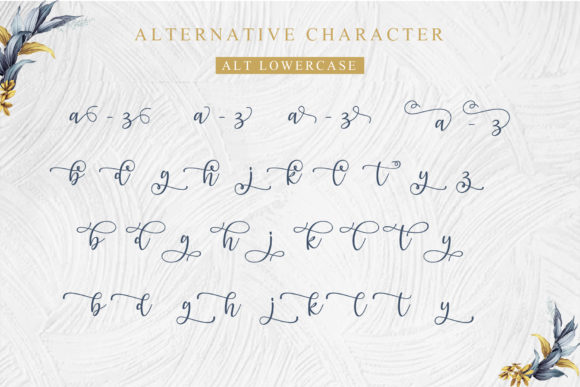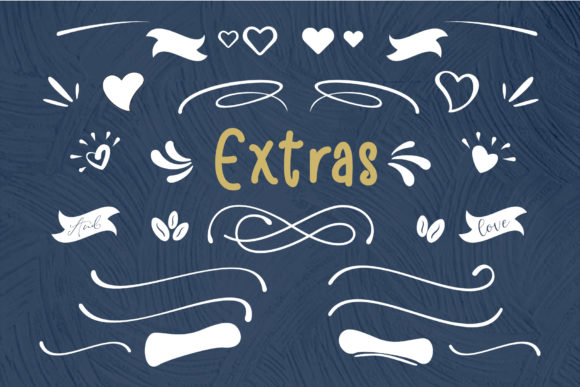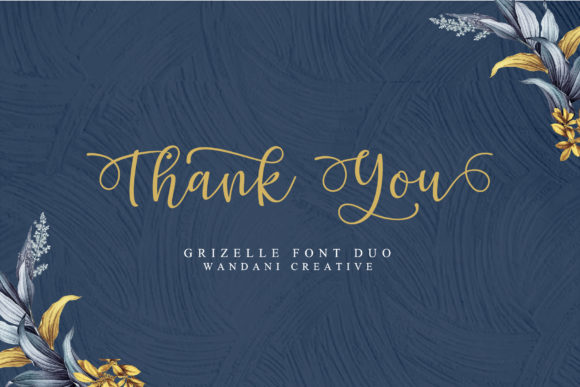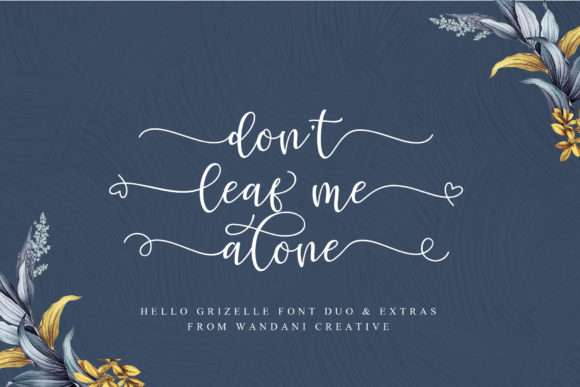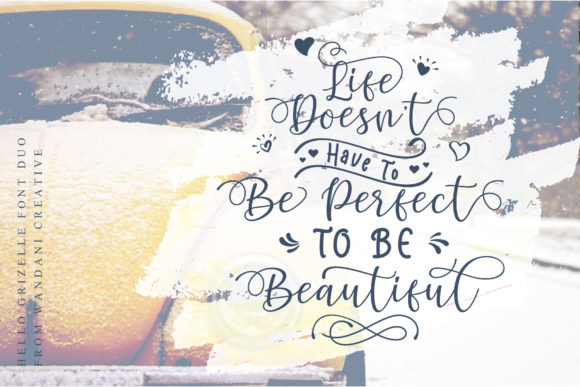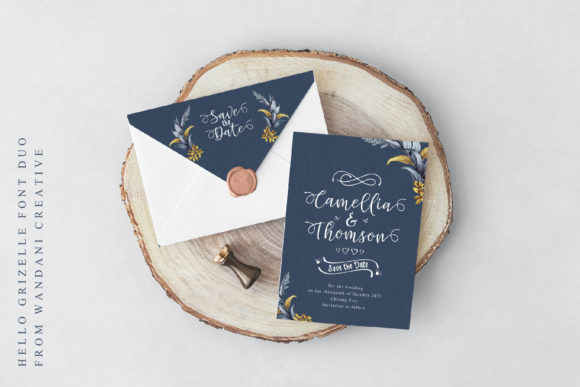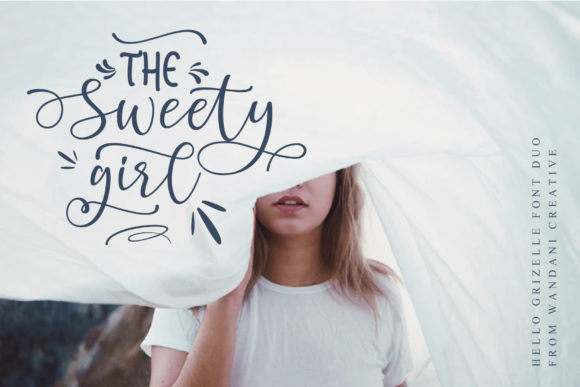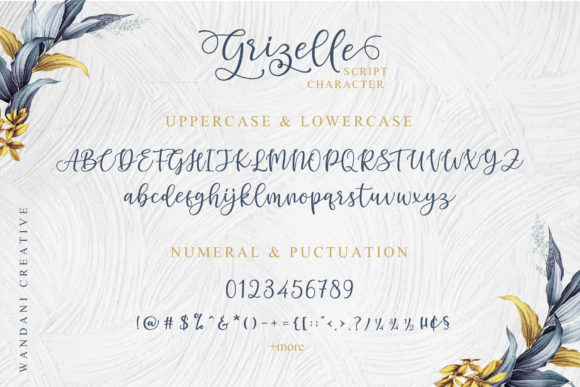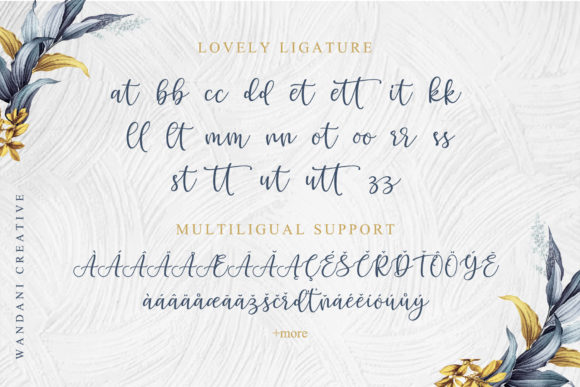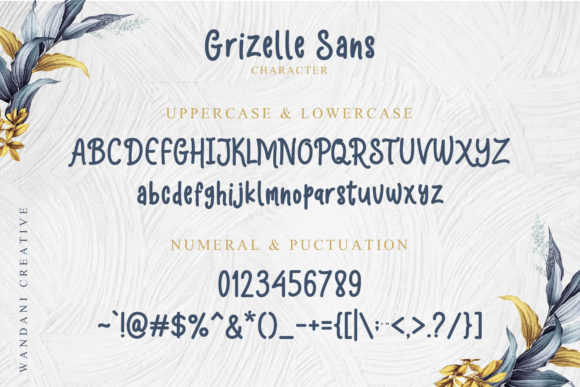
Hello Grizelle Duo Font
About Hello Grizelle Duo Font
Hello Grizelle is an amazing and charming handwritten font duo with inspiring extras. It will add a unique spark to any design idea!